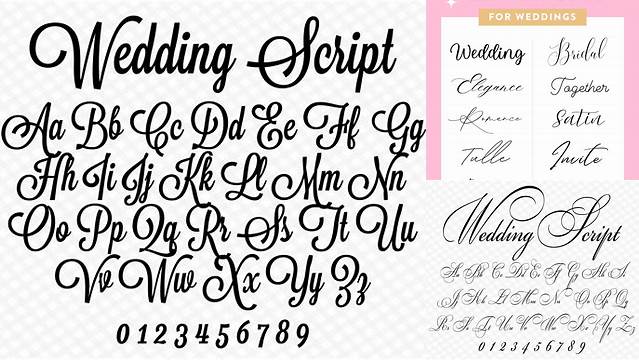
Elegant Cursive Fonts: Your Guide To Wedding Invitations
Are you planning a wedding and looking for the perfect cursive fonts to add a touch of elegance and romance to your special day? Well, you've come to the right place! In this comprehensive guide, we'll dive deep into the world of cursive fonts for weddings, exploring everything from their history and significance to the best options available and how to use them effectively.
Why Choose Cursive Fonts for Your Wedding?
When it comes to weddings, cursive fonts hold a special place in our hearts. There's just something about their flowing lines and elegant curves that evokes a sense of tradition, romance, and sophistication. But why is that? Let's delve into the history and significance of cursive fonts to understand their enduring appeal.
A Touch of History and Tradition
Cursive fonts, also known as script fonts, have a rich history dating back centuries. They evolved from handwriting styles and were initially used for important documents and formal correspondence. Think of the elegant calligraphy in old love letters or the graceful script in historical manuscripts. This historical connection lends cursive fonts a sense of tradition and timelessness, making them a natural choice for wedding invitations and other stationery. Using the right cursive fonts can instantly transport your guests to a world of romance and elegance. The very act of choosing a cursive font is a nod to the past, a conscious decision to incorporate tradition into your modern celebration. It's like adding a vintage touch to a contemporary event, creating a beautiful blend of old and new. Furthermore, the flowing nature of cursive fonts mimics the continuous, interconnected journey of a couple embarking on a lifelong commitment. Each stroke connects to the next, symbolizing the unbreakable bond being formed.
Evoking Romance and Elegance
Beyond their historical roots, cursive fonts also possess an inherent quality of romance and elegance. The swirling lines and delicate strokes create a visual poetry that perfectly complements the sentimental atmosphere of a wedding. They whisper of love, commitment, and happily ever after. The graceful curves and flourishes of cursive fonts exude sophistication, elevating the overall aesthetic of your wedding materials. Imagine your invitations adorned with a beautiful cursive font, the names of the bride and groom flowing effortlessly across the page. It sets the tone for a refined and memorable event, signaling to your guests that they are in for a truly special occasion. The visual appeal of cursive fonts is undeniable. They catch the eye and draw the reader in, creating a sense of anticipation and excitement. This is especially important for wedding invitations, which are often the first glimpse your guests have into your wedding day.
Adding a Personal Touch
In a world of digital communication, cursive fonts offer a unique opportunity to add a personal touch to your wedding. They mimic the look of handwriting, creating a sense of intimacy and warmth. It's like sending a handwritten note in the digital age, showing your guests that you put extra thought and care into your wedding details. Choosing a cursive font that reflects your personality and style can further enhance this personal touch. Whether you prefer a classic and formal script or a more modern and playful design, the right font can speak volumes about your relationship and your vision for your wedding day. This personal touch extends beyond invitations. Cursive fonts can be incorporated into other wedding elements, such as place cards, menus, and even signage, creating a cohesive and personalized look throughout your event. It's the little details that often make the biggest difference, and choosing the right cursive fonts is a simple yet effective way to elevate your wedding to the next level.
Top Cursive Fonts for Wedding Invitations
Now that we've established why cursive fonts are such a popular choice for weddings, let's explore some of the best options available. With so many beautiful fonts to choose from, it can be overwhelming to narrow down the perfect one for your special day. But don't worry, we've got you covered! Here are some of the top cursive fonts for wedding invitations, categorized by style to help you find the perfect match for your wedding theme.
Classic and Elegant Cursive Fonts
For a timeless and sophisticated look, you can't go wrong with classic cursive fonts. These fonts are elegant, refined, and exude a sense of tradition. They are perfect for formal weddings or any event where you want to create a sense of understated luxury. Some popular examples include:
- Shelley Script: This font is a true classic, known for its delicate strokes and elegant flourishes. It's a timeless choice that will never go out of style.
- Edwardian Script: This font is another popular choice for formal weddings. It features elaborate loops and swirls, creating a sense of grandeur and sophistication.
- Botanica Script: This font offers a balance between classic elegance and modern appeal. Its flowing lines and delicate details make it a versatile choice for various wedding styles.
These classic cursive fonts are ideal for couples who want to create a sense of timeless romance. They evoke a sense of tradition and formality, perfect for elegant ballroom weddings or intimate gatherings in historic venues. The clean lines and graceful curves of these fonts ensure readability while maintaining a sophisticated aesthetic. When choosing a classic cursive font, consider the overall tone of your wedding. If you're planning a black-tie affair, opt for a more formal script like Edwardian Script. For a slightly less formal but equally elegant option, Shelley Script or Botanica Script would be excellent choices. Remember that the cursive font you choose will be a reflection of your personal style and the overall theme of your wedding, so take your time and explore different options until you find the perfect fit.
Modern and Playful Cursive Fonts
If you're looking for something a little less traditional, modern cursive fonts offer a fresh and playful alternative. These fonts often feature bolder strokes, unique letterforms, and a more relaxed feel. They are perfect for contemporary weddings or couples who want to add a touch of personality to their invitations. Here are a few examples:
- Melika Script: A beautiful modern calligraphy font with elegant swashes and flowing connections.
- Northwell: A hand-lettered style font that gives off a relaxed and casual vibe, perfect for a rustic or bohemian wedding.
- Salted Caramel: This font is a fun and whimsical option, with its bouncy baseline and playful letterforms.
Remember guys, your wedding invitations are a reflection of your love story and the start of your happily ever after. Take the time to find a cursive font that speaks to you and your partner, and don't be afraid to get creative! With a little bit of planning and effort, you can create invitations that are as beautiful and unique as your love.